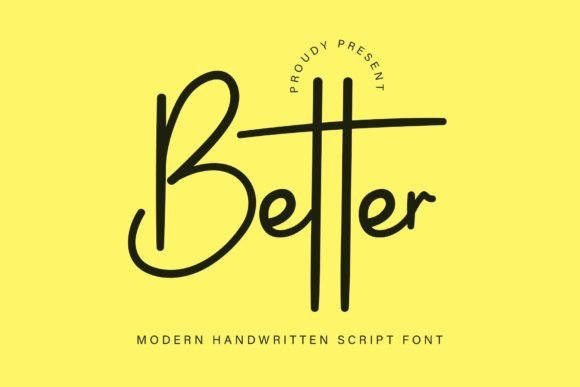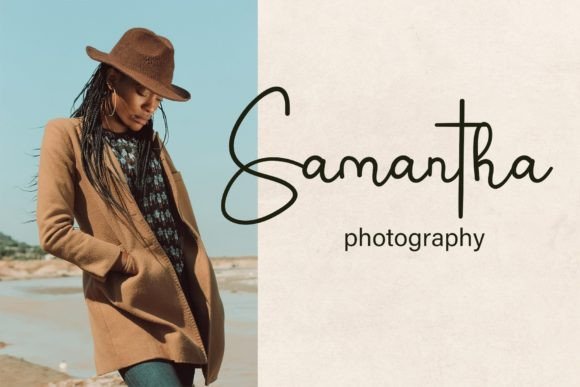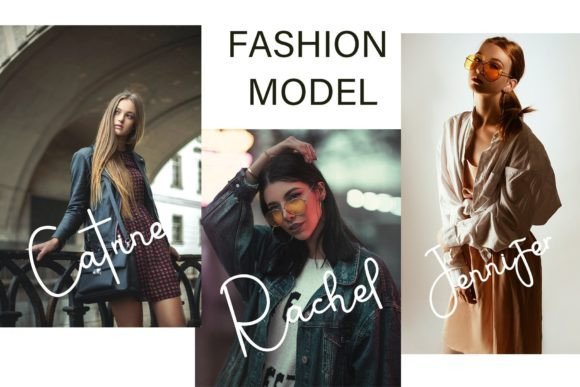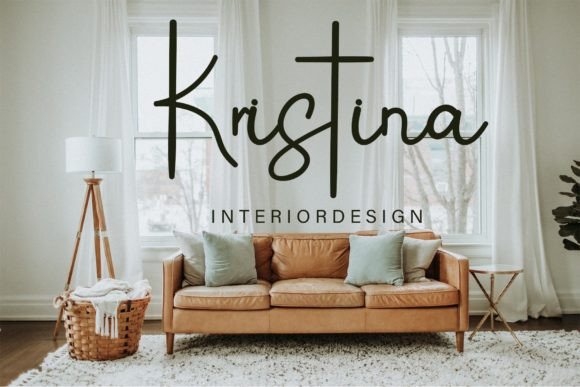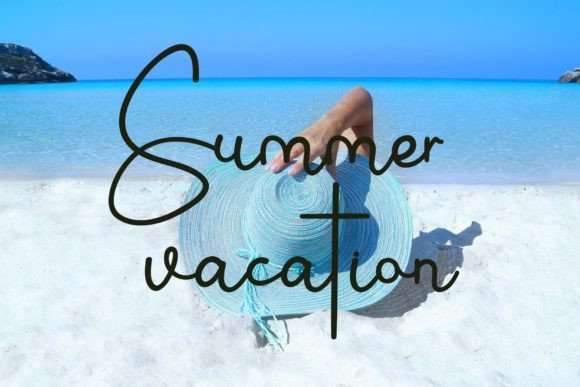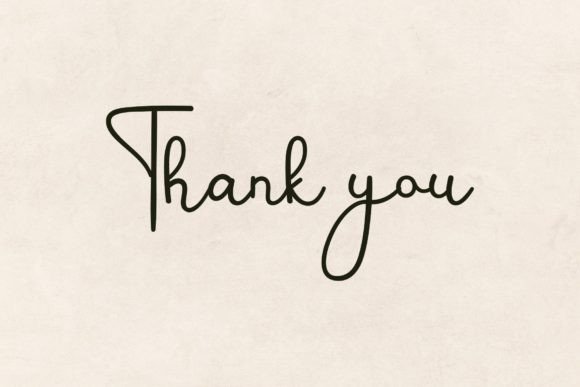
Better Font
About Better Font
Introducing Better, a delightful and friendly handwritten font designed to infuse a sense of fun into your designs. With its playful style, Better has the power to turn any design idea into a true standout. Let the unique charm of Better inspire your creativity and bring a lovely touch to your creations.
This font is more than just a set of letters; it’s a creative tool that adds a playful and friendly atmosphere to your projects. Whether you’re working on posters, social media graphics, invitations, or any other creative endeavor, Better brings a lighthearted and inviting vibe.
Embrace the distinctive charm of Better as you explore its creative potential. Let it be the catalyst that transforms your design concepts into visually appealing and lovable creations. Whether used for headlines, logos, or any other design element, Better ensures that your projects radiate warmth and charm.
Incorporate Better into your design toolkit and witness how it can elevate your ideas into something extraordinary. Let the fun and friendly vibes of this handwritten font bring a new level of joy and approachability to your creative projects, making them not only visually appealing but also filled with delightful charm.